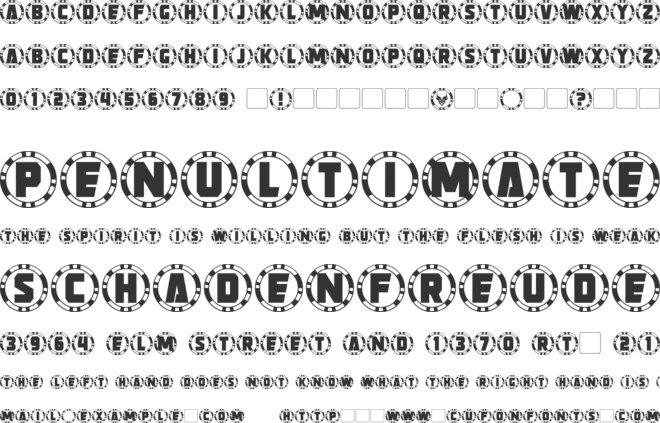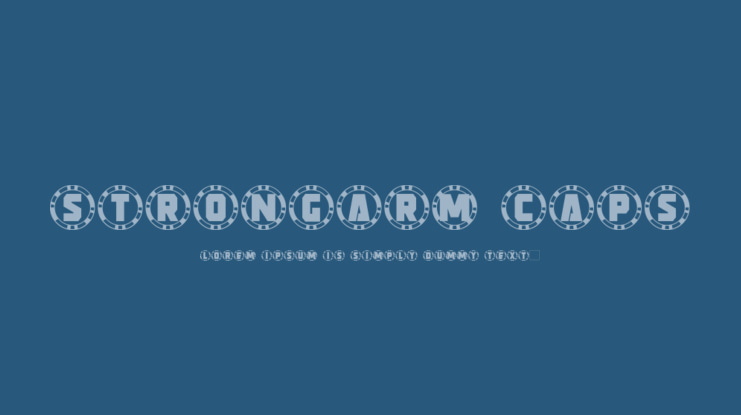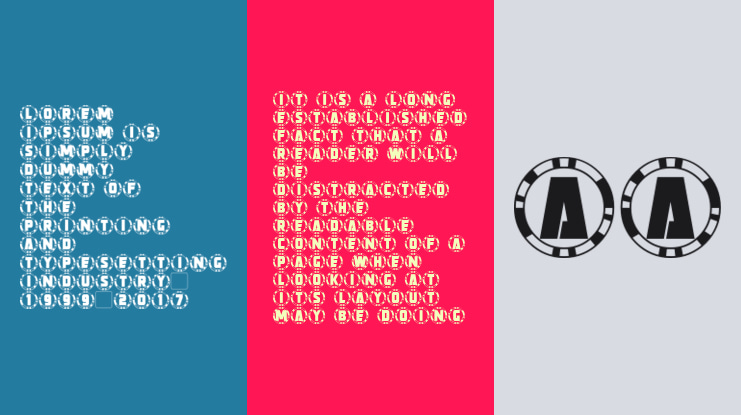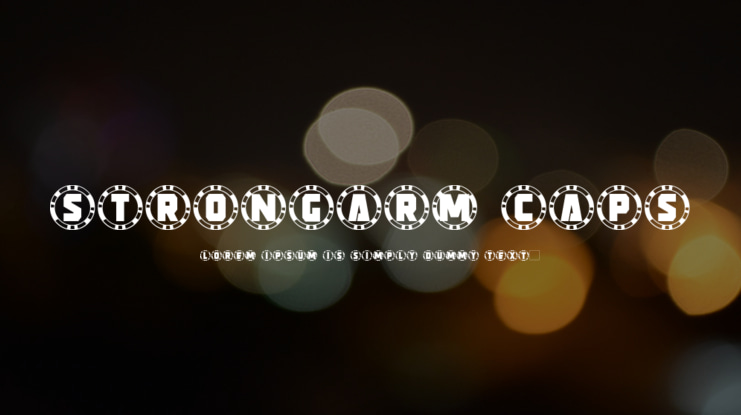
Strongarm Caps Font
Neale Davidson
Strongarm Caps
This ‘caps’ font is based on the lettering and ‘tech emblem’ used in Hasbro’s 2015 “Robots in Disguise” line, with the tech emblem surrounding the capital letters used in the “Strongarm” font. Includes Autobot, Predacon, and Decepticon symbols, all letters and numerals.